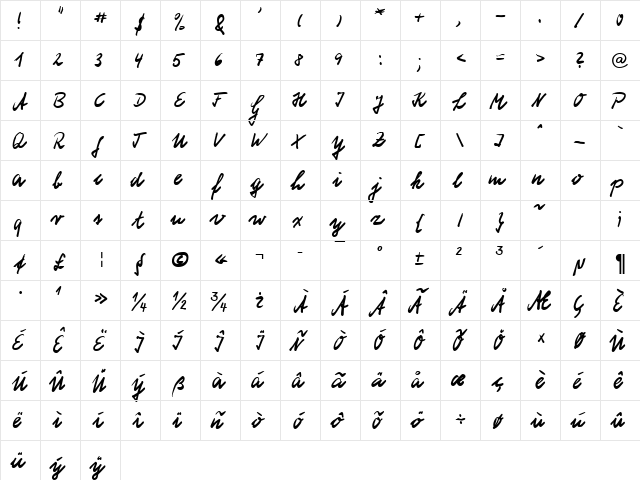
HW Schneid DB Normal
Design Context for HW Schneid DB Typeface
HW Schneid DB is a composed and adaptable typeface that performs quietly and consistently across a wide range of design contexts.